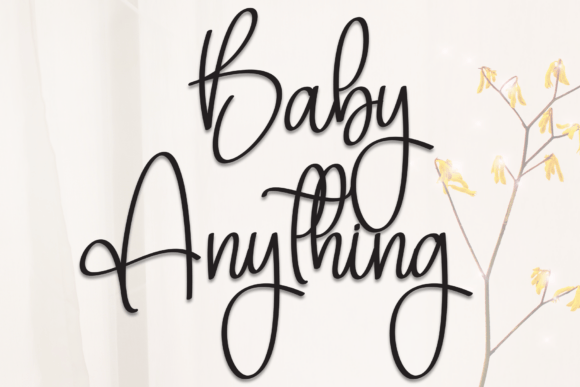
The Sweetest Addition to Your Design: Baby Anything Font
Have you ever sat down with a blank piece of paper, a cup of coffee, and a whole lot of excitement, ready to create something special for the newest addition to your family? For many of us, designing a baby announcement or nursery decor is a chance to express our love and joy in a creative way. But, let’s be honest, finding the perfect font can be a challenge.
Enter Baby Anything Font, a charming handwritten font that’s as sweet as it is versatile. With its playful, rounded letters, this font adds a warm and friendly feel to any design. Whether you’re creating a baby announcement, decorating a nursery, or simply want to add a personal touch to your projects, Baby Anything Font is the perfect choice. Its ease of readability and charming style make it a valuable addition to any designer’s toolkit.
Baby Anything Font Key Features
- Font Family: Baby Anything, a playful and cursive script font
- Unique Characteristics: Includes alternate characters, swashes, and ligatures to create a whimsical and personalized feel
Review of “Baby Anything Font”
I was excited to dive into “Baby Anything Font” and see what it had to offer. After a thorough review, I’m here to give you the lowdown.
- Whimsical feel**: This font captures a playful, childlike essence that’s perfect for nursery decorations, children’s books, or any project that needs a lighthearted touch.
- Variety of styles**: “Baby Anything Font” comes with multiple styles, from bold and cursive to script and sans-serif, giving you plenty of options for creative expression.
- Easy to read**: Despite its playful nature, the font remains legible even in smaller sizes, making it suitable for various applications.
- Limited font weights**: While there are multiple styles, some font weights are missing, which may limit its use in certain contexts.
- Not ideal for body text**: Due to its playful nature, “Baby Anything Font” might not be the best choice for large blocks of body text, as it can become overwhelming.
Overall impression
Overall, “Baby Anything Font” is a delightful addition to any designer’s toolkit. While it has some limitations, its unique charm and versatility make it a great choice for projects that need a touch of whimsy. If you’re looking for a fun, creative font to spice up your designs, “Baby Anything Font” is definitely worth considering.
The Baby Anything Font is perfect for:
– Creating nursery decor and stationery
– Designing baby shower invitations and party decor
– Adding a personal touch to baby gifts and cards
– Creating a consistent brand identity for baby-related businesses
To get the most out of the Baby Anything Font, experiment with different font sizes, colors, and styles to create a unique and eye-catching design. Combine the font with other design elements, such as graphics and images, to add depth and interest to your design.